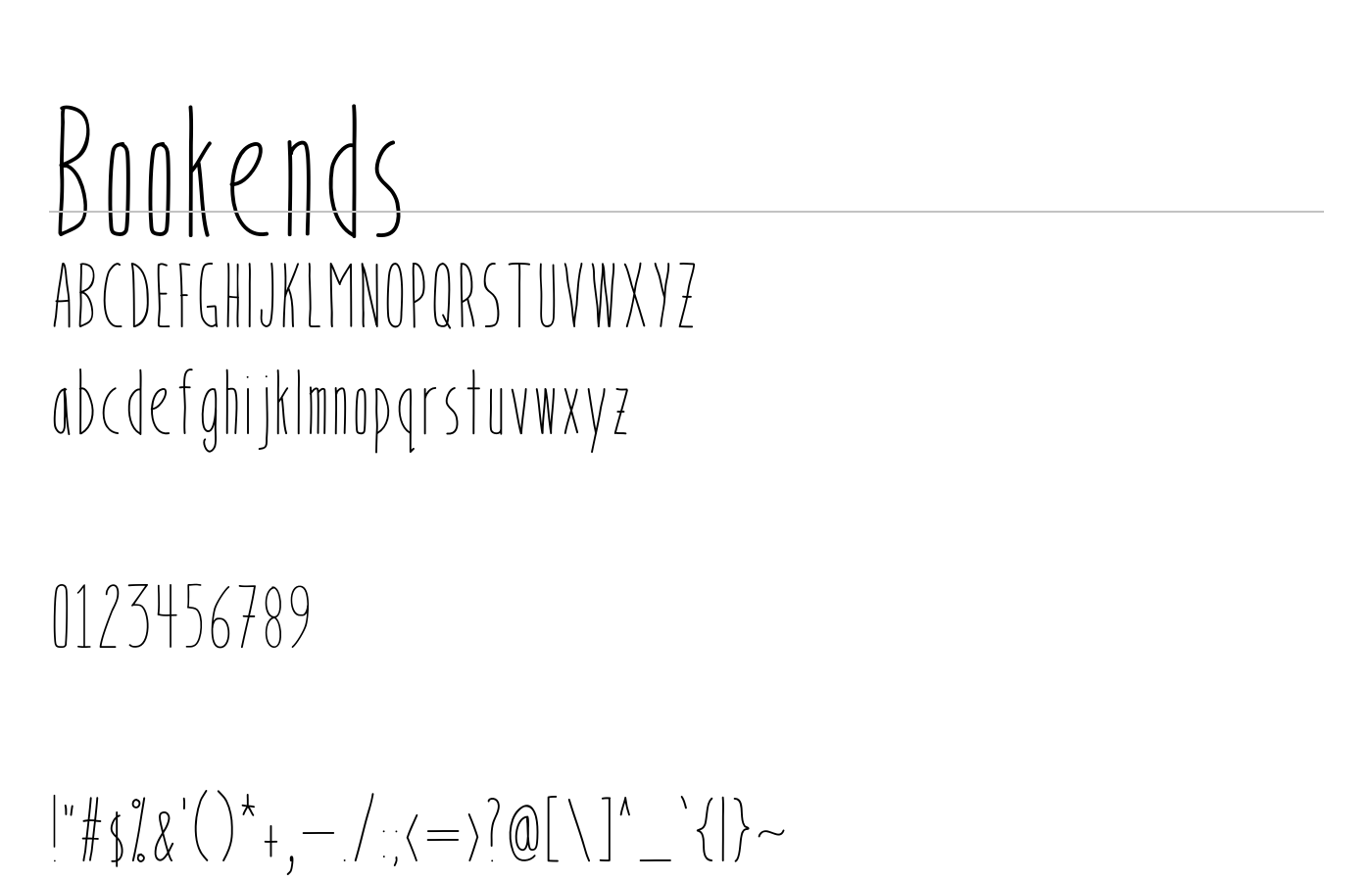
Bookends is a tall, thin, handwritten-style sans serif font that conveys a quirky, casual, and slightly whimsical personality. Its narrow letterforms, high x-height, and delicate strokes give it an elegant yet approachable feel, making it ideal for creative projects, invitations, or editorial headlines where a hand-crafted, modern look is desired. This font works well in designs that need a personal touch without sacrificing readability.
Bookends Font
About Bookends Font